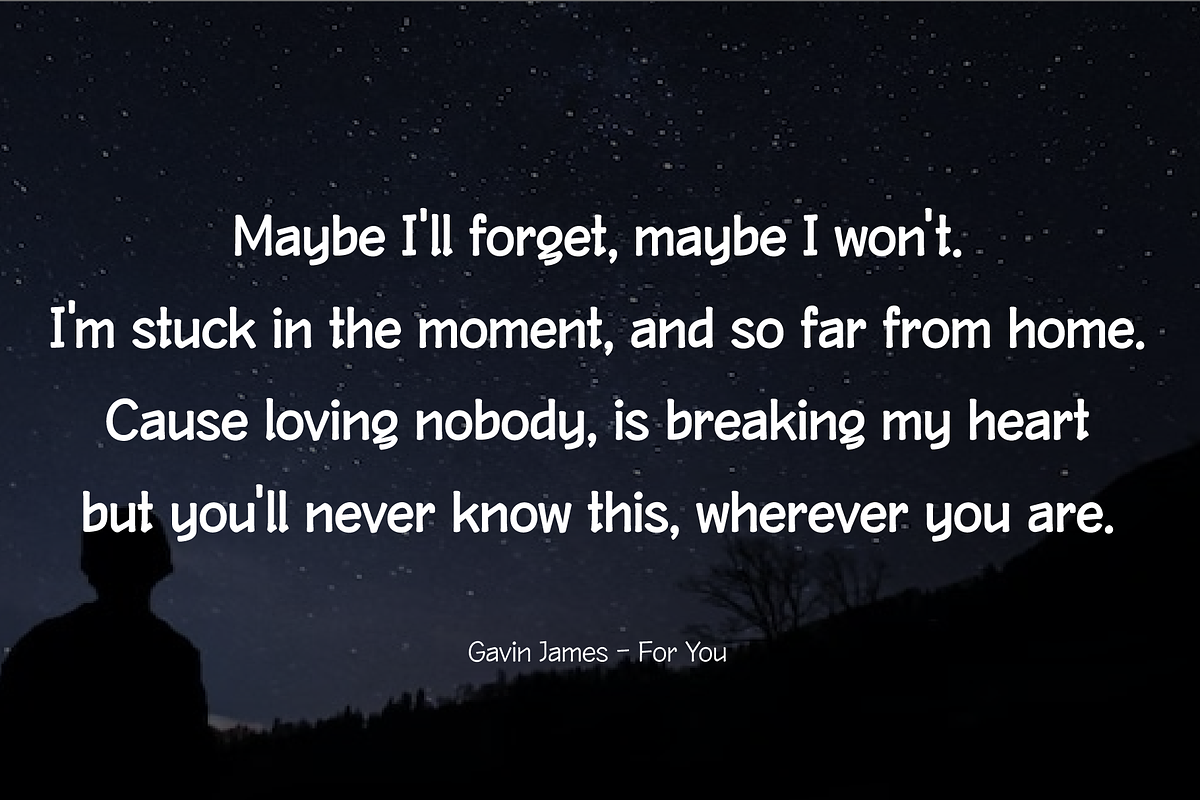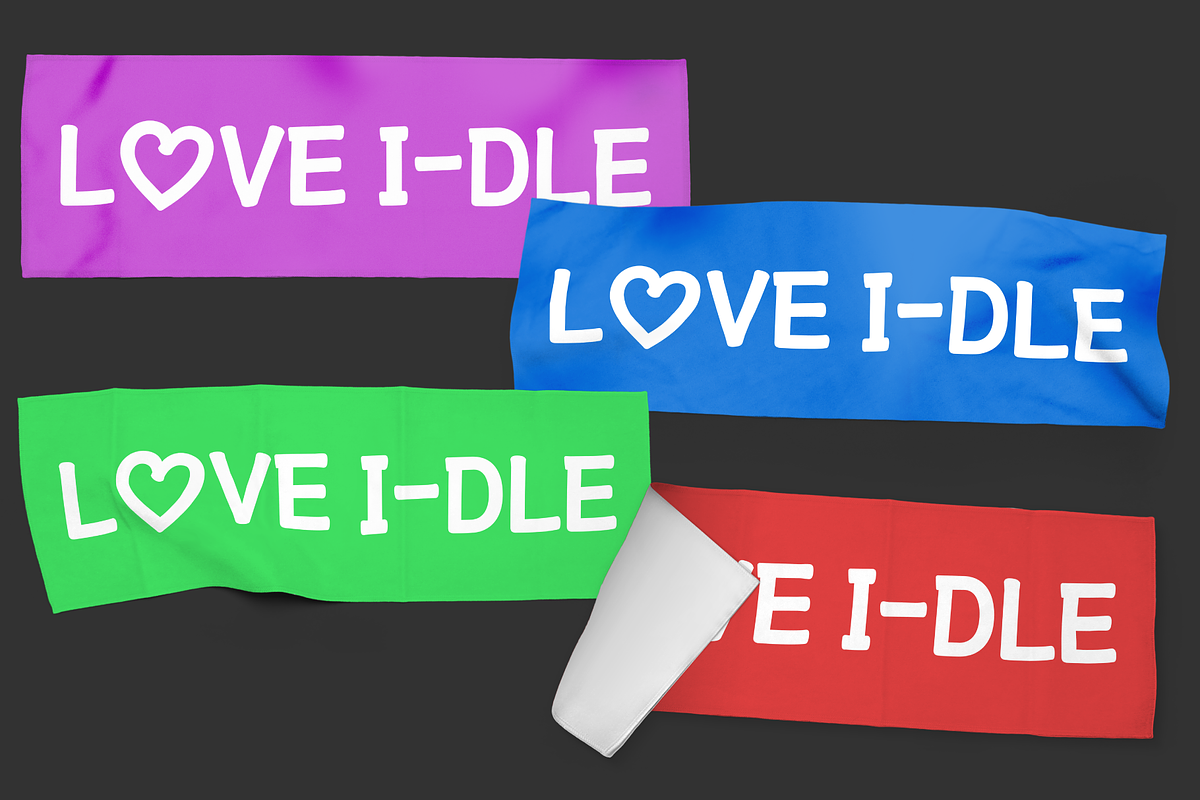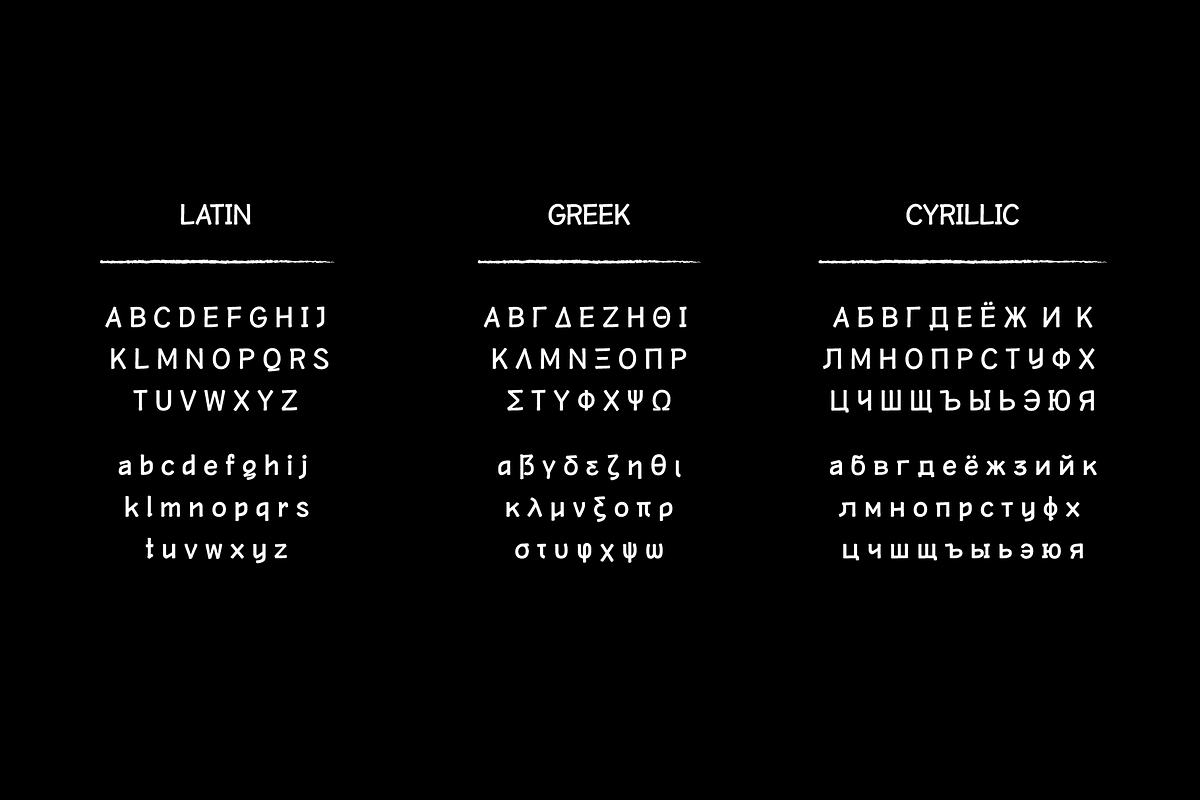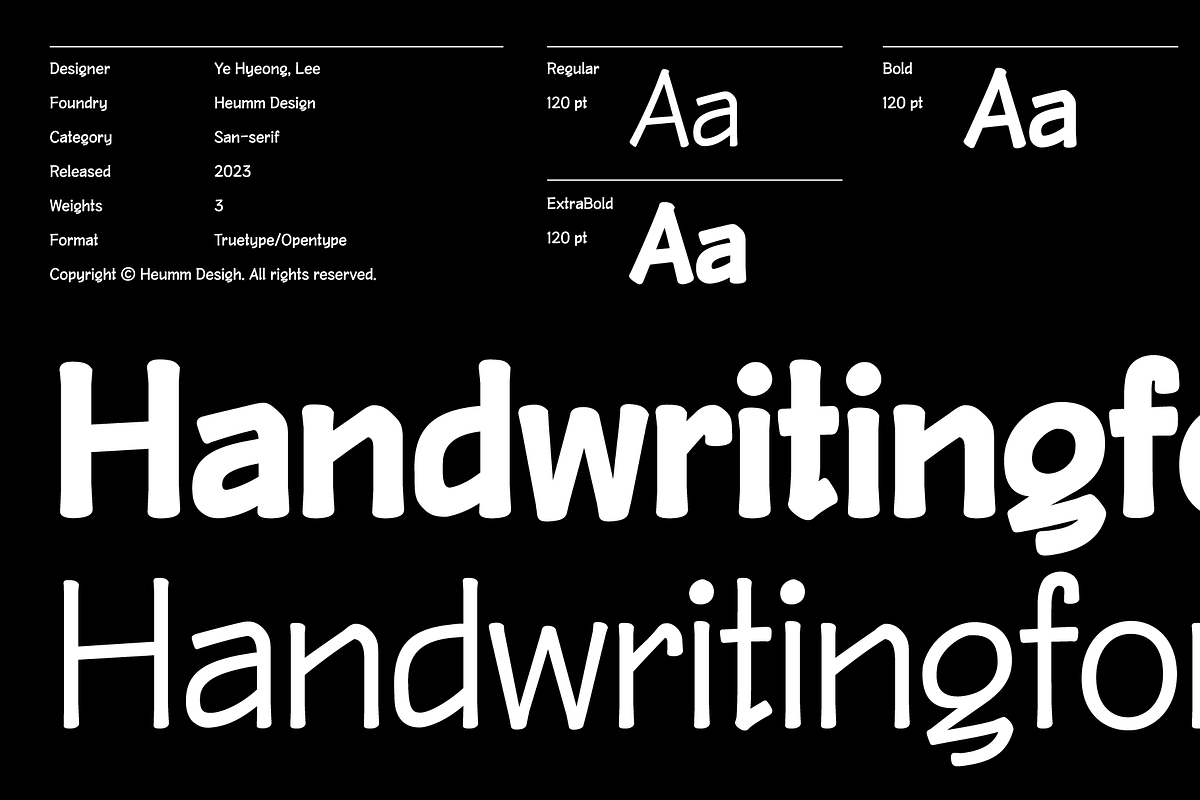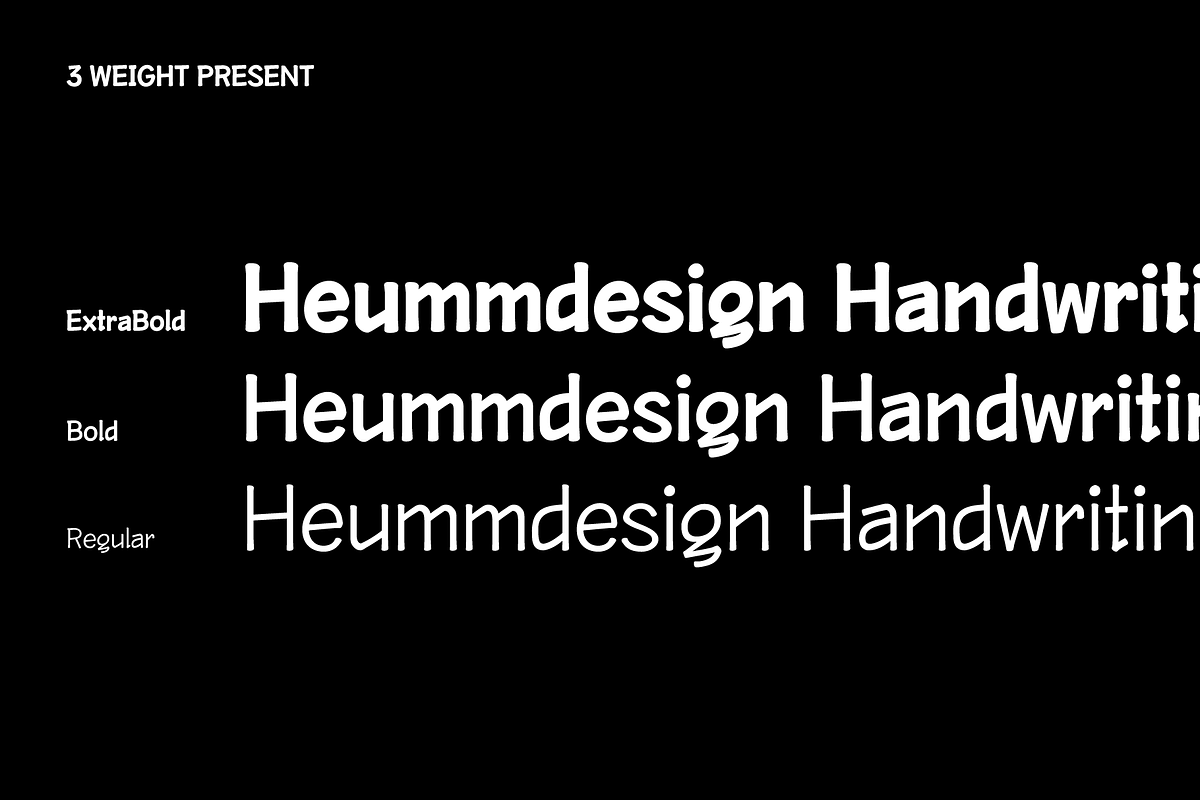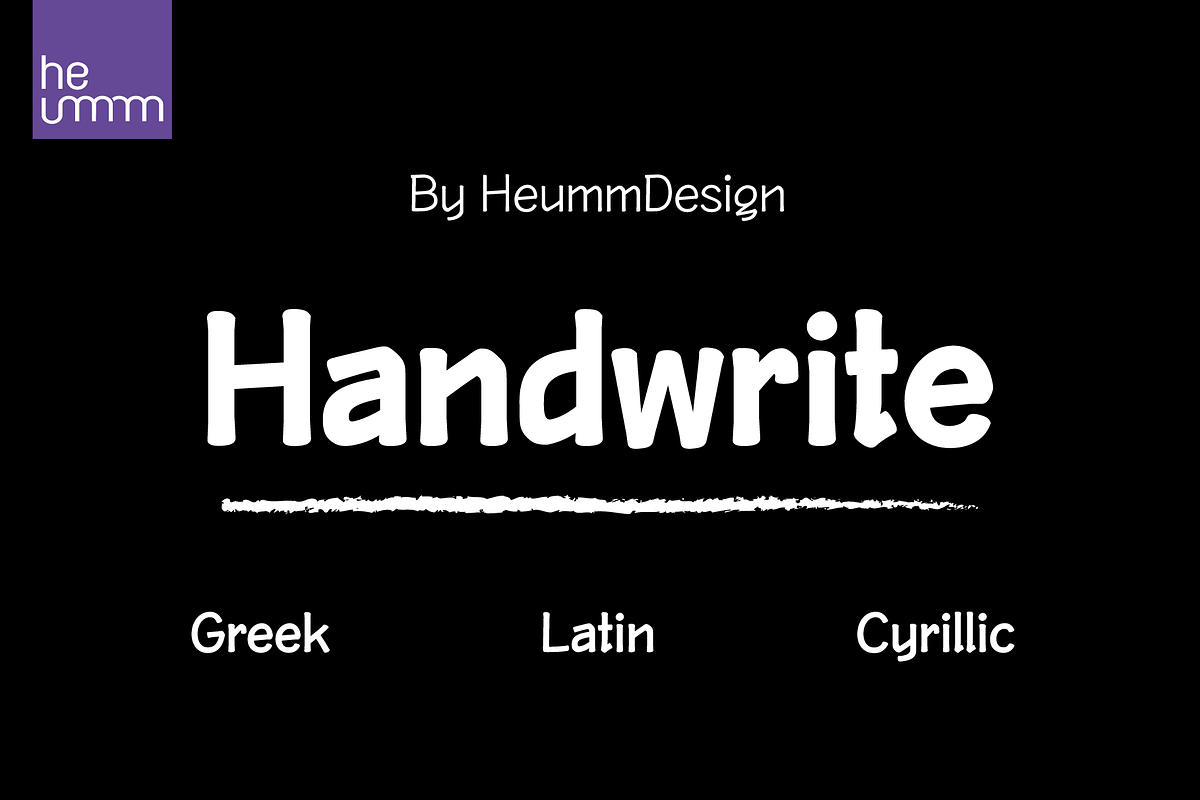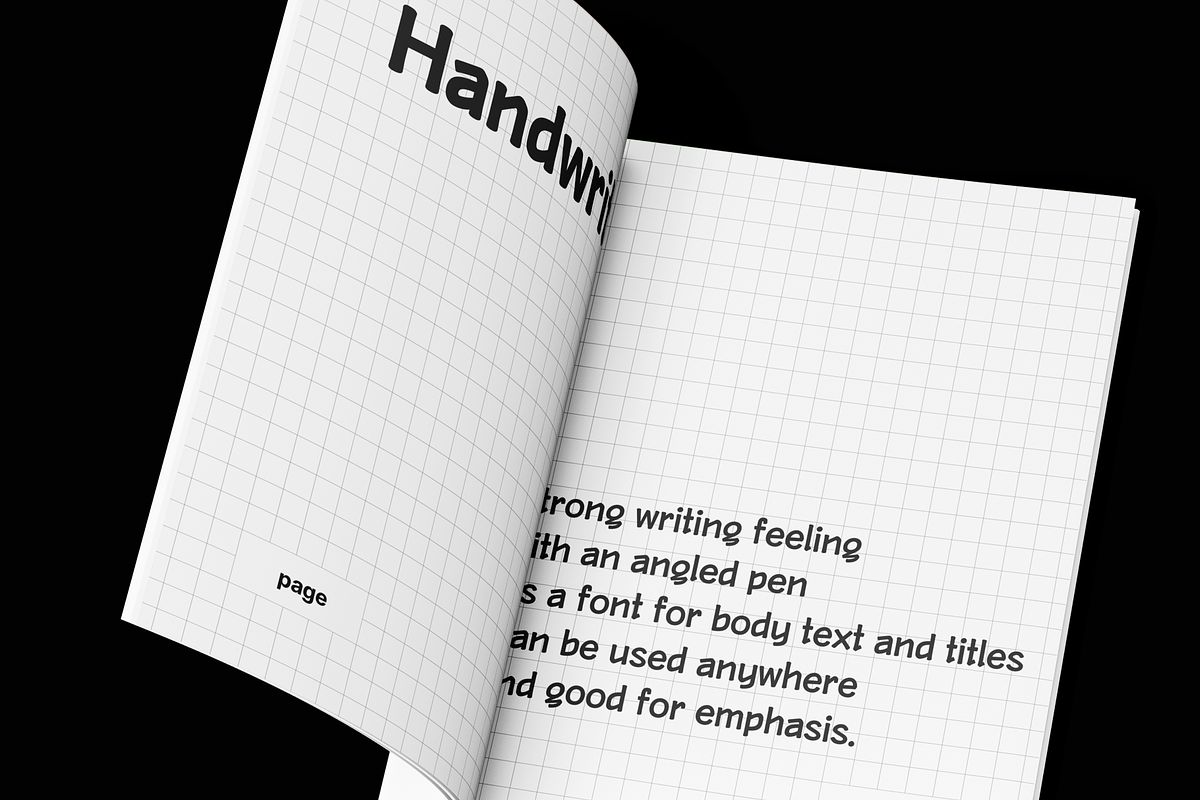
HU Handwrite is a handwriting-style font for body text that emphasizes gentleness and solidity by using less curvature and making use of a straight feel.
The handwriting feeling is emphasized through the style that makes use of the natural bending and stroke order. Softness was added in the shape of a gentle curve, and perspective was applied by setting a vanishing point in the lower left corner.
There is 1 weight of HU Handwrite : Regular, Bold, ExtraBold
- Multilanguage (Basic Latin, Western European, Euro, Catalan, Baltic, Turkish, Central European, Romanian, Pan African Latin, Dutch, Afrikaans, Basic Greek, Basic Cyrillic, Mathematical Operators)
- 997 Glyphs(Latin Extension Font)